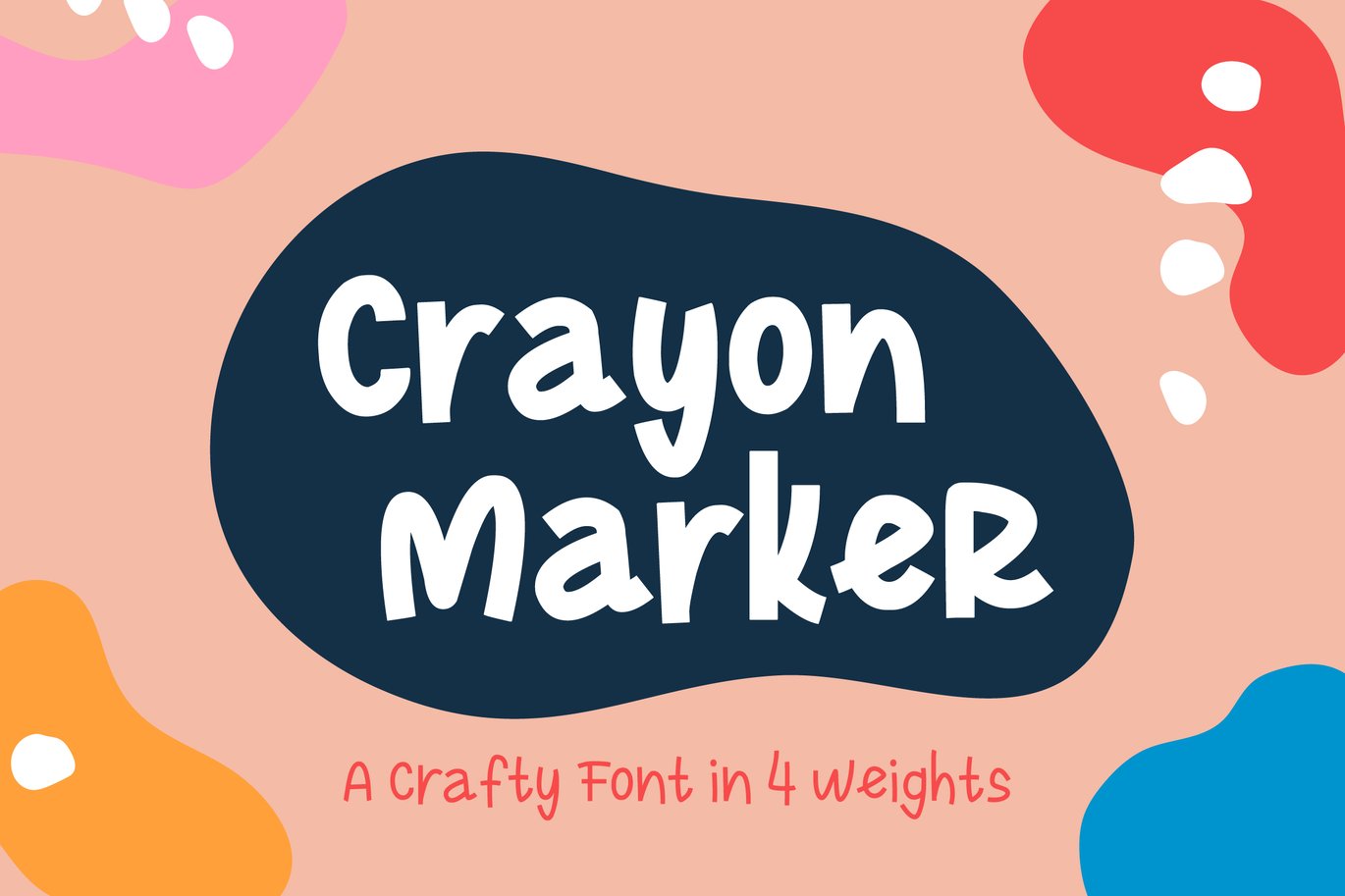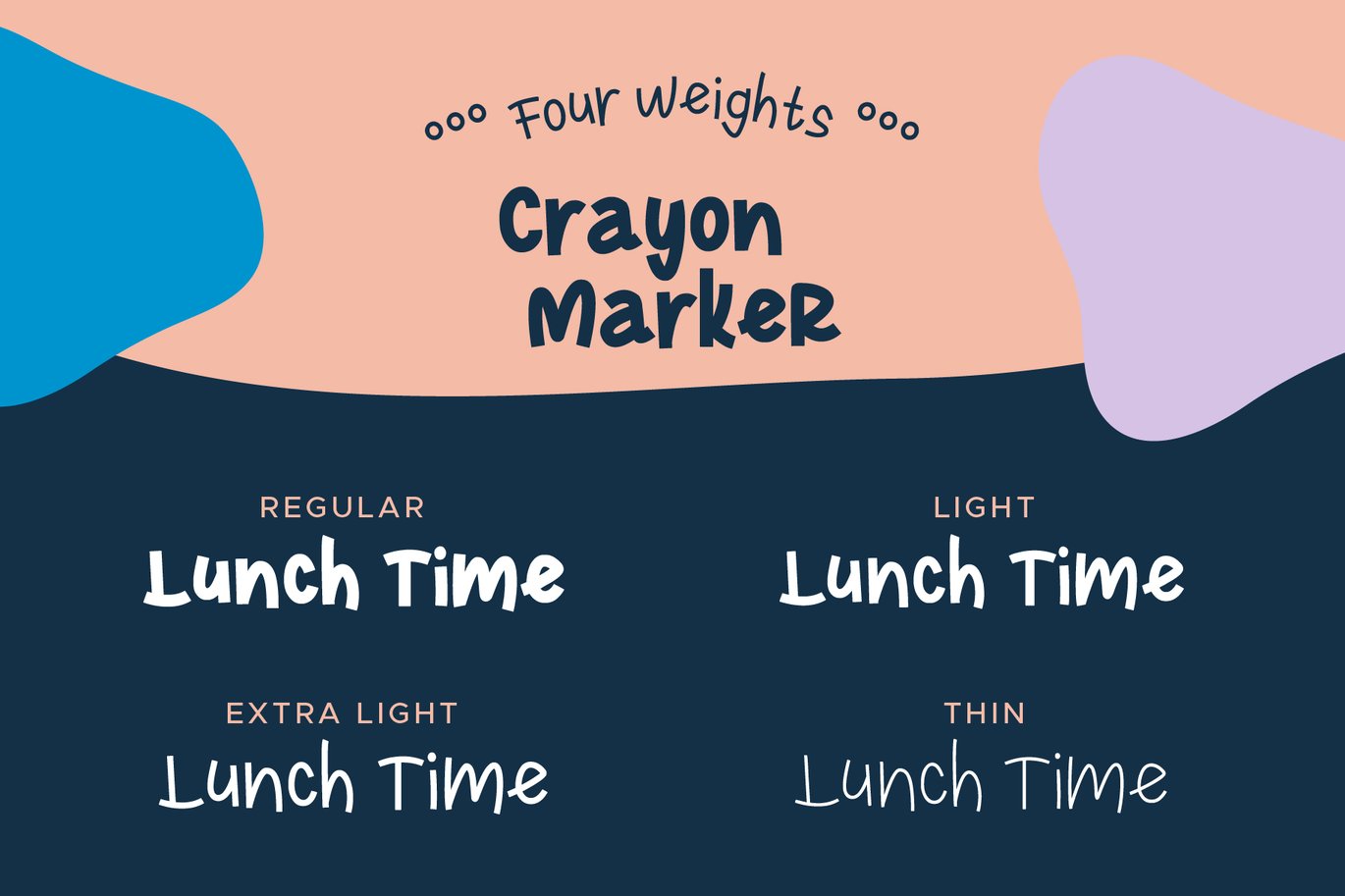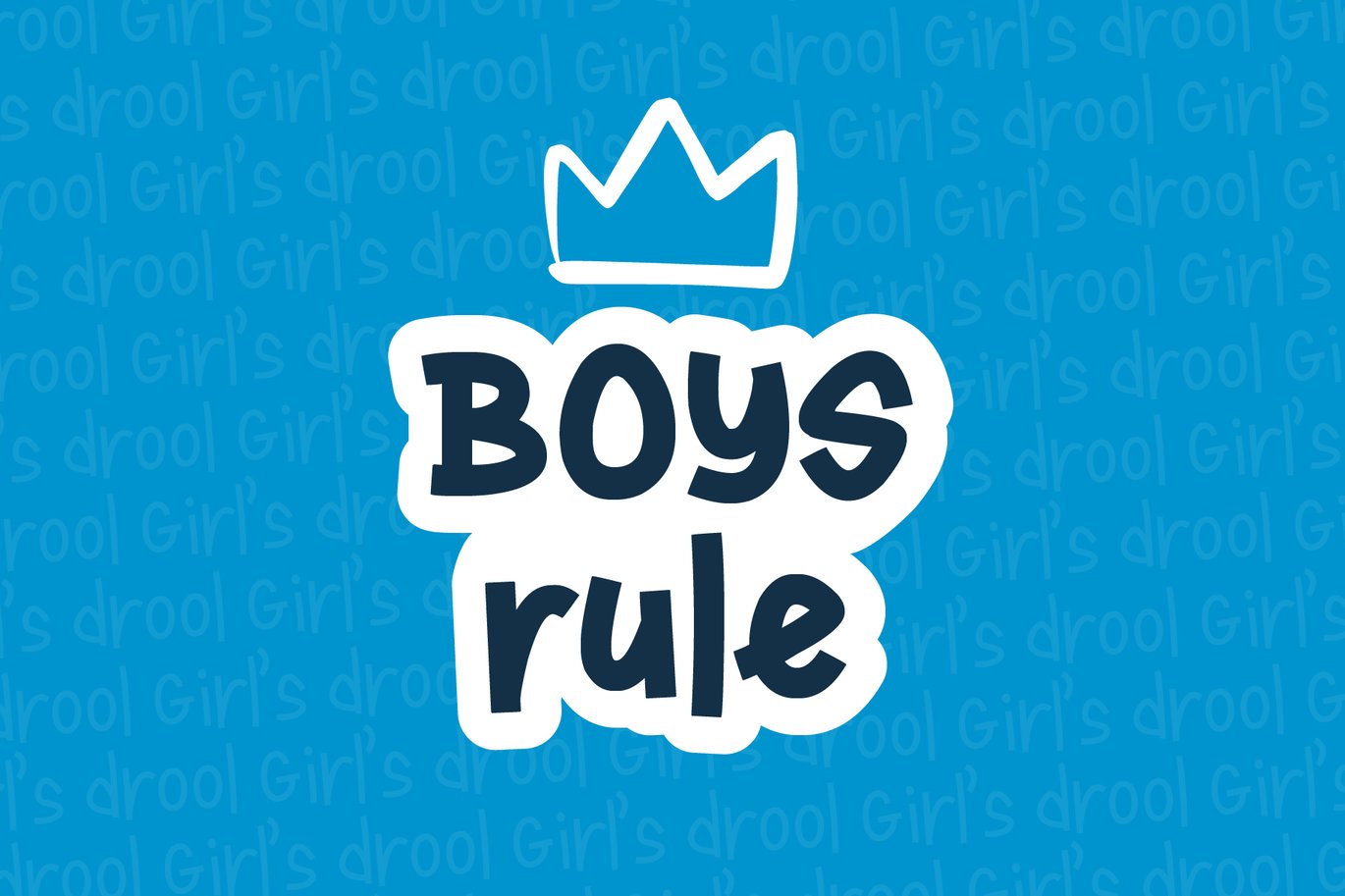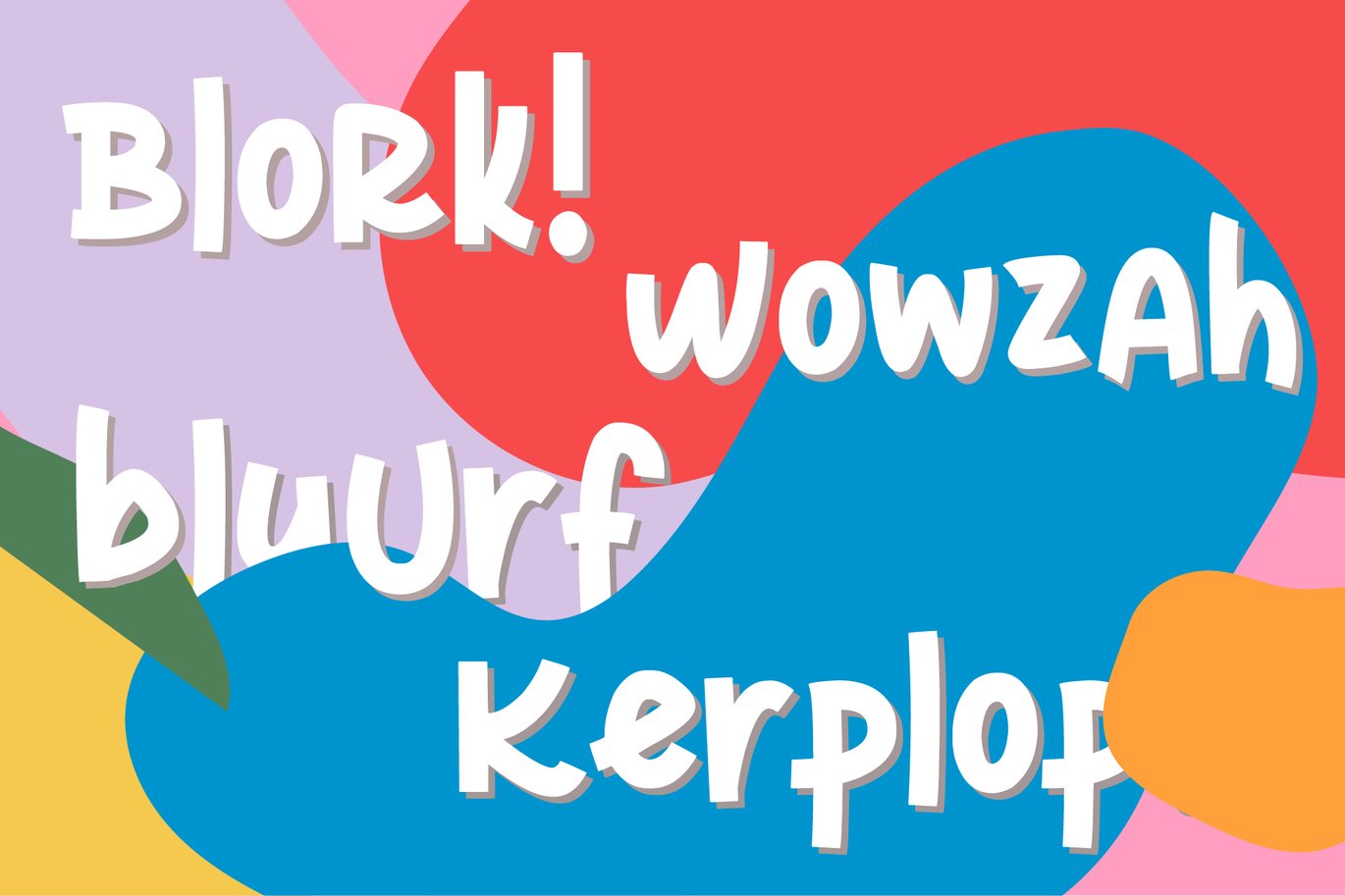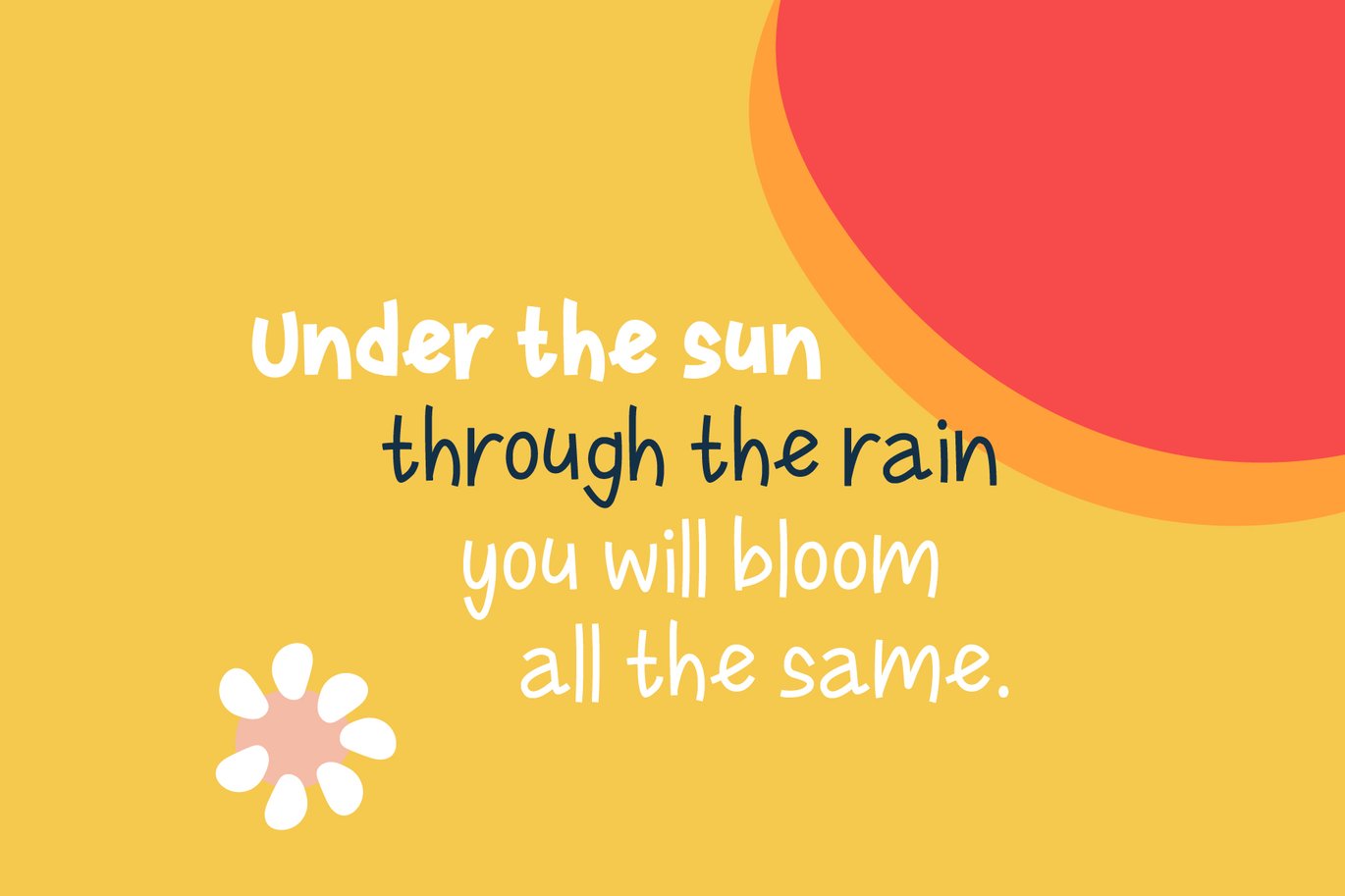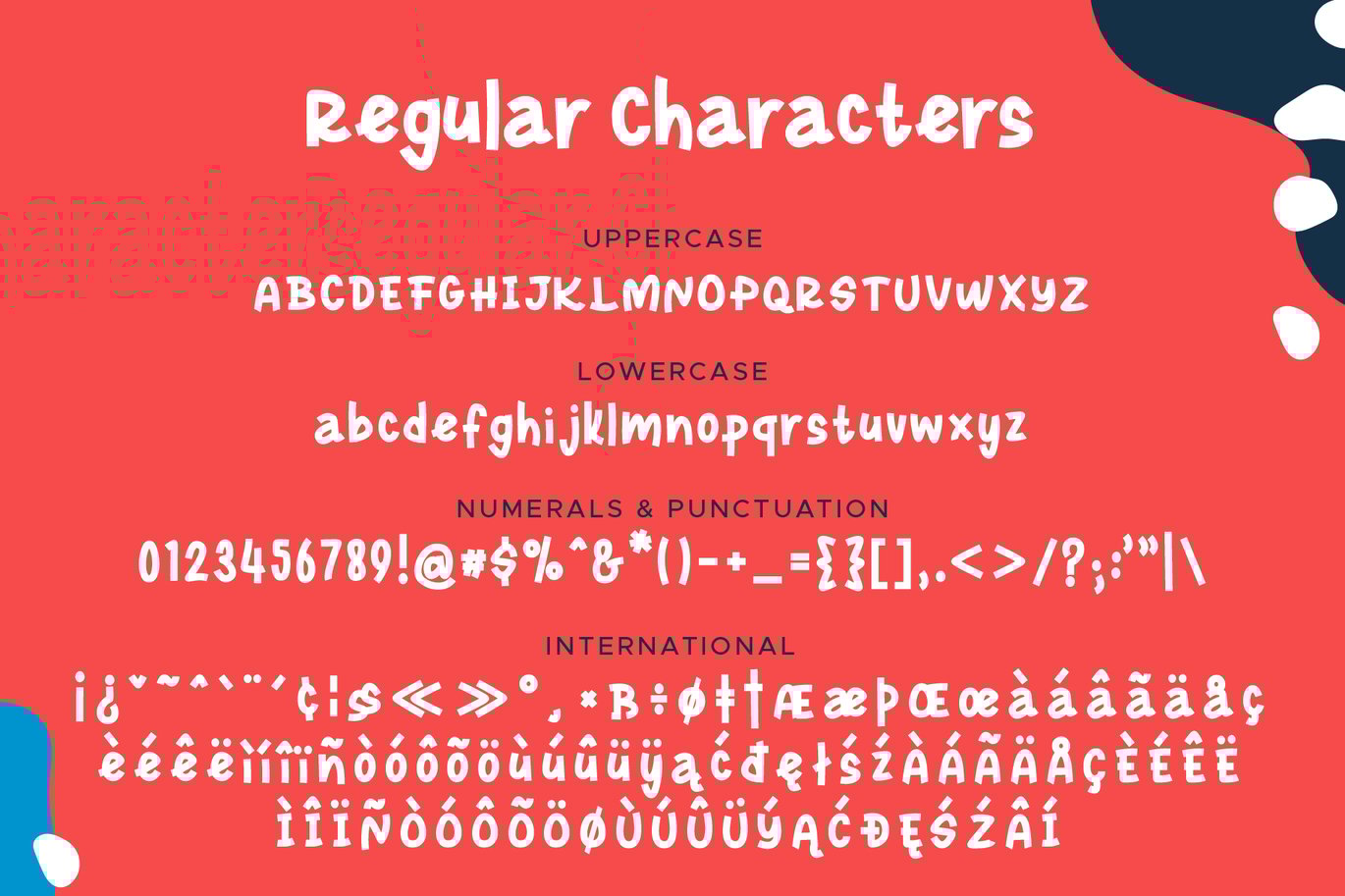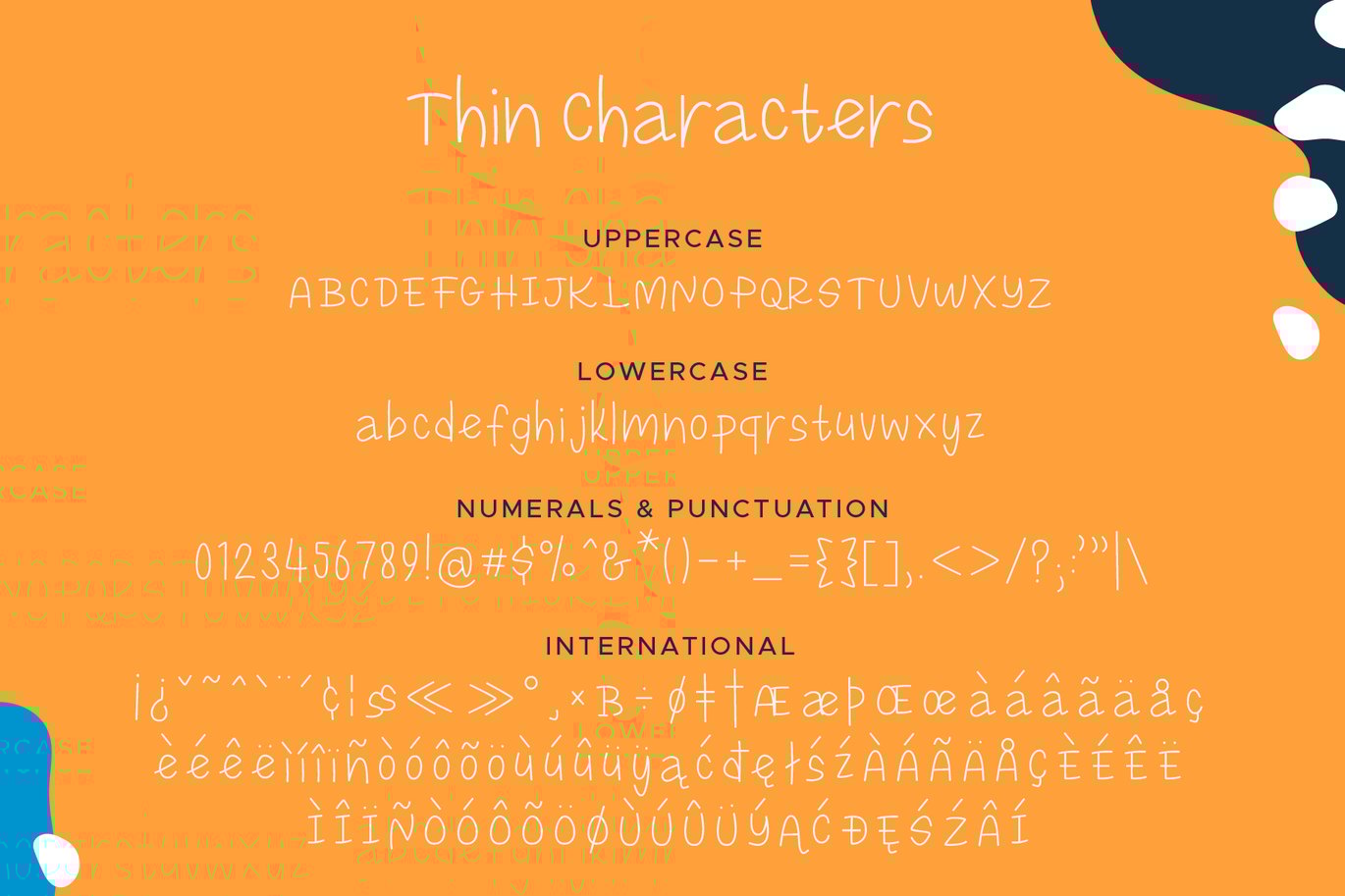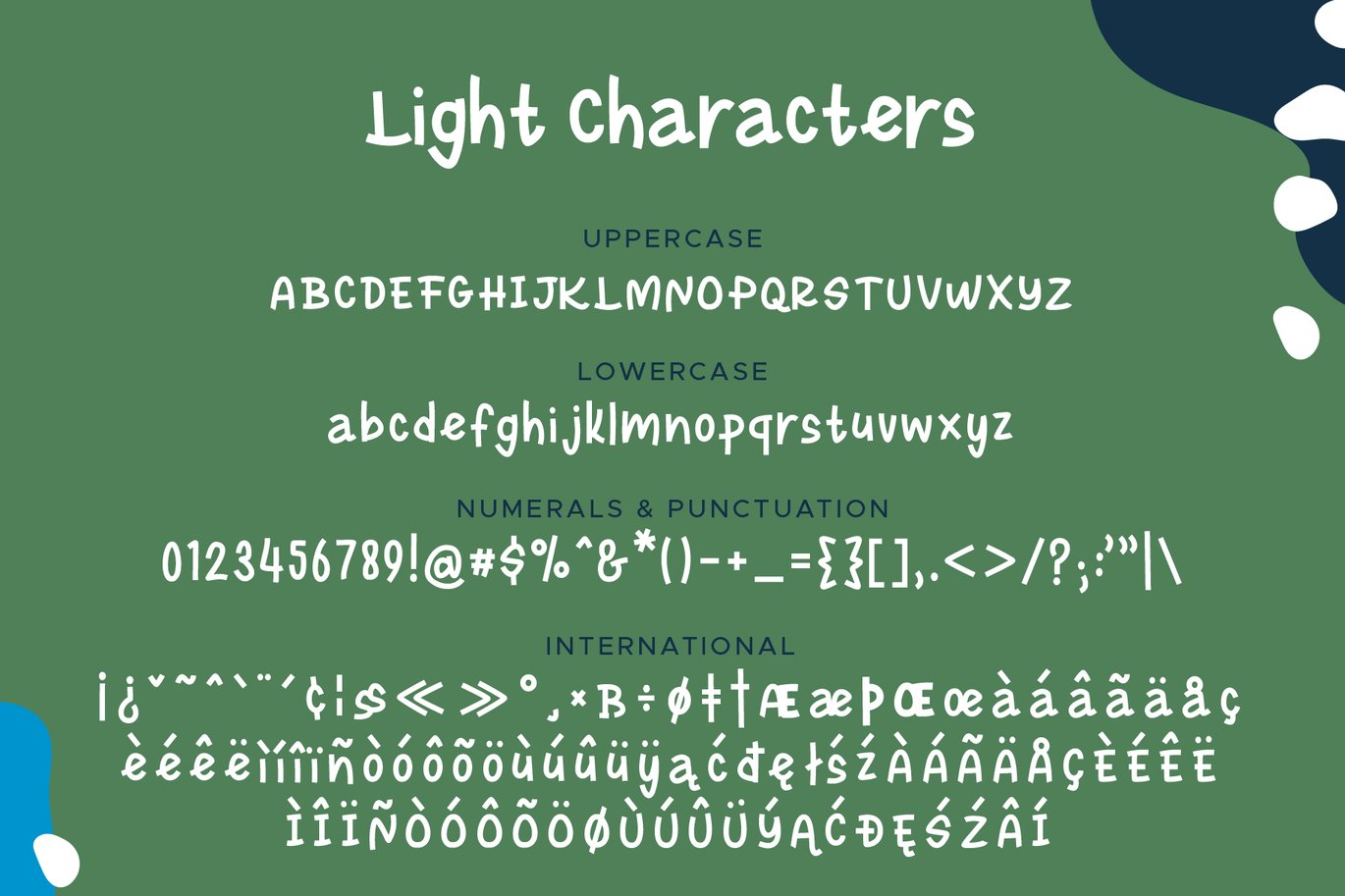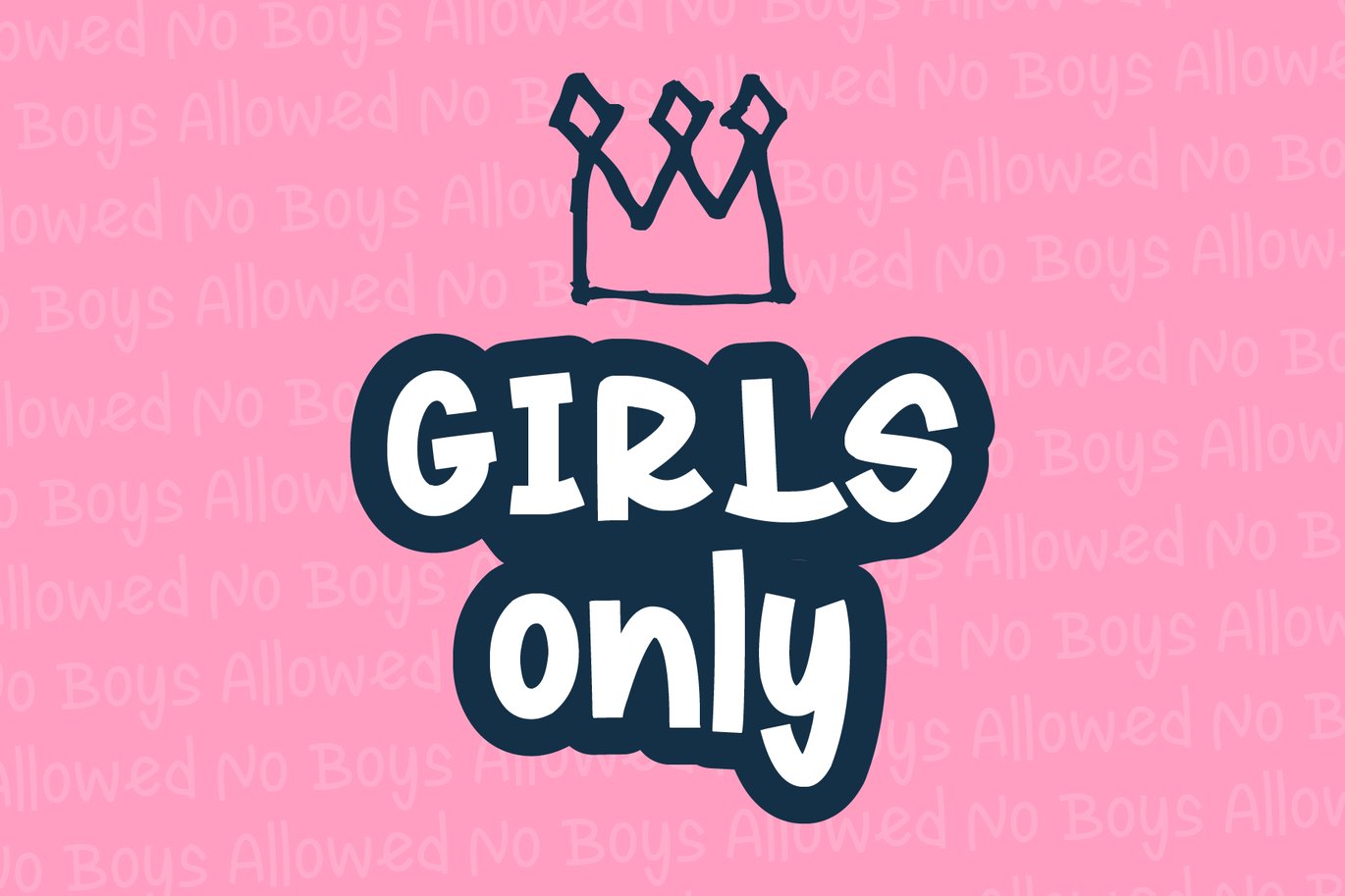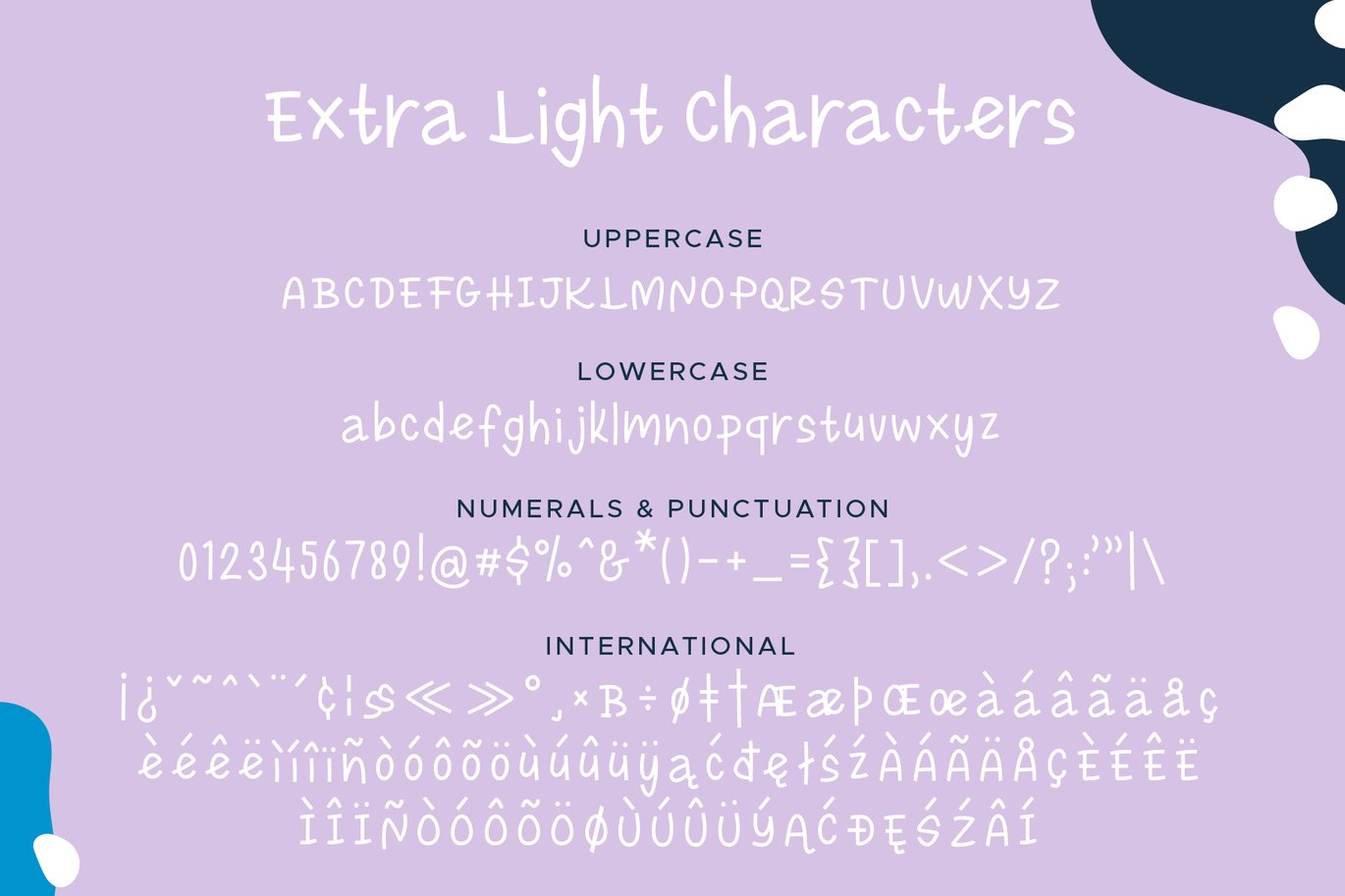
Crayon Marker Font
ABOUT CRAYON MARKER :
Crayon Marker is a playful hand-drawn typeface. AND it comes in 4 weights so you can Mix-N-Match to your hearts desire! Use for logos, quotes, invitations, greeting cards, journals, kids room wall art, baby clothing and more. This font will make your designs playful and fun!
- Over 75 Bonus Glyphs including International Language Support